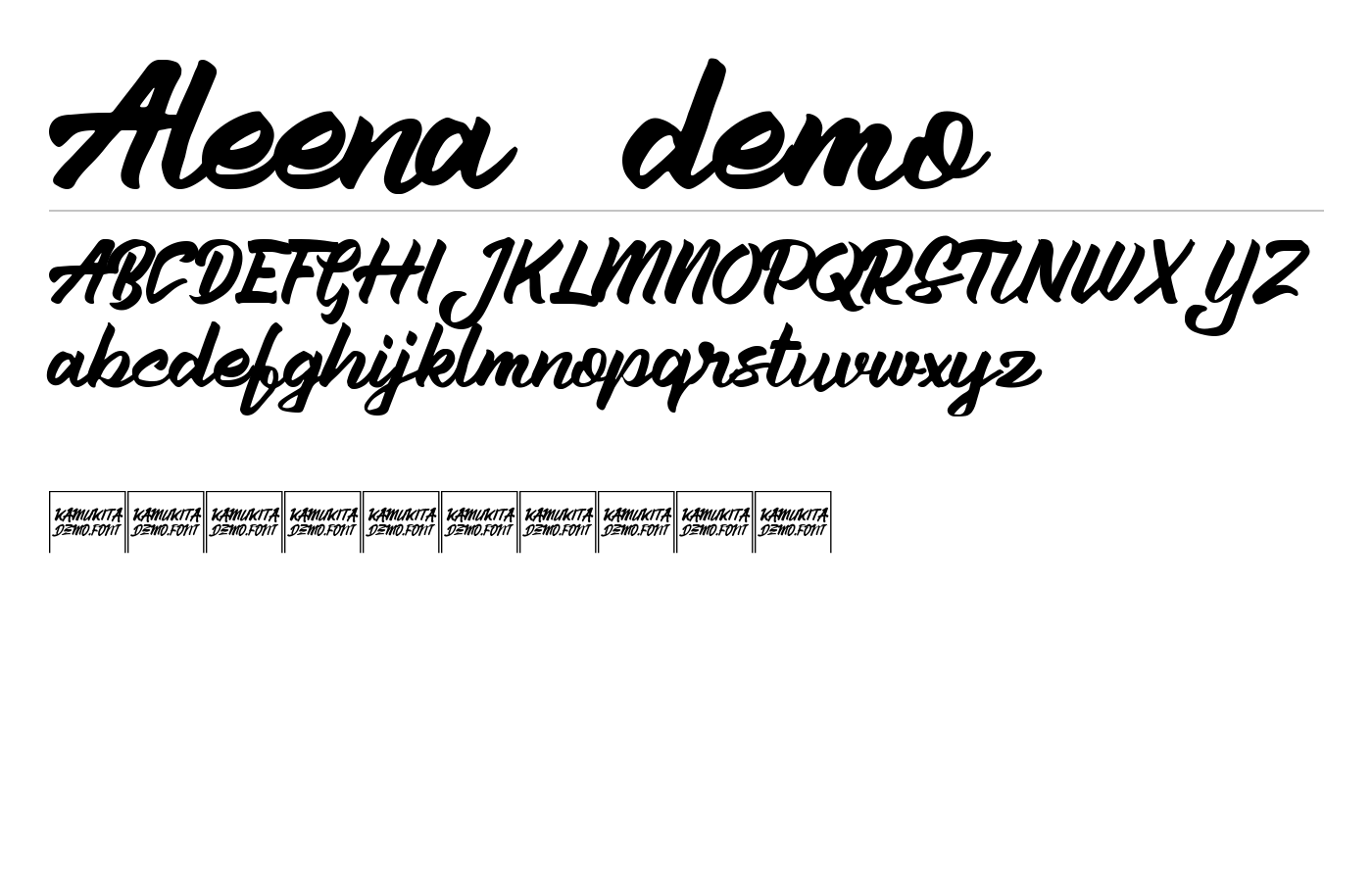
Aleena (demo) is a bold, energetic script font with a hand-painted feel, featuring smooth, fluid strokes and a slightly condensed width that adds a dynamic, friendly touch. Its lively letterforms and tight spacing make it ideal for logos, headlines, and packaging that seek a vibrant, personal, and approachable style. This font works best in creative, casual branding where a warm, modern, and expressive personality is desired.
Aleena (demo) Font
About Aleena (demo) Font